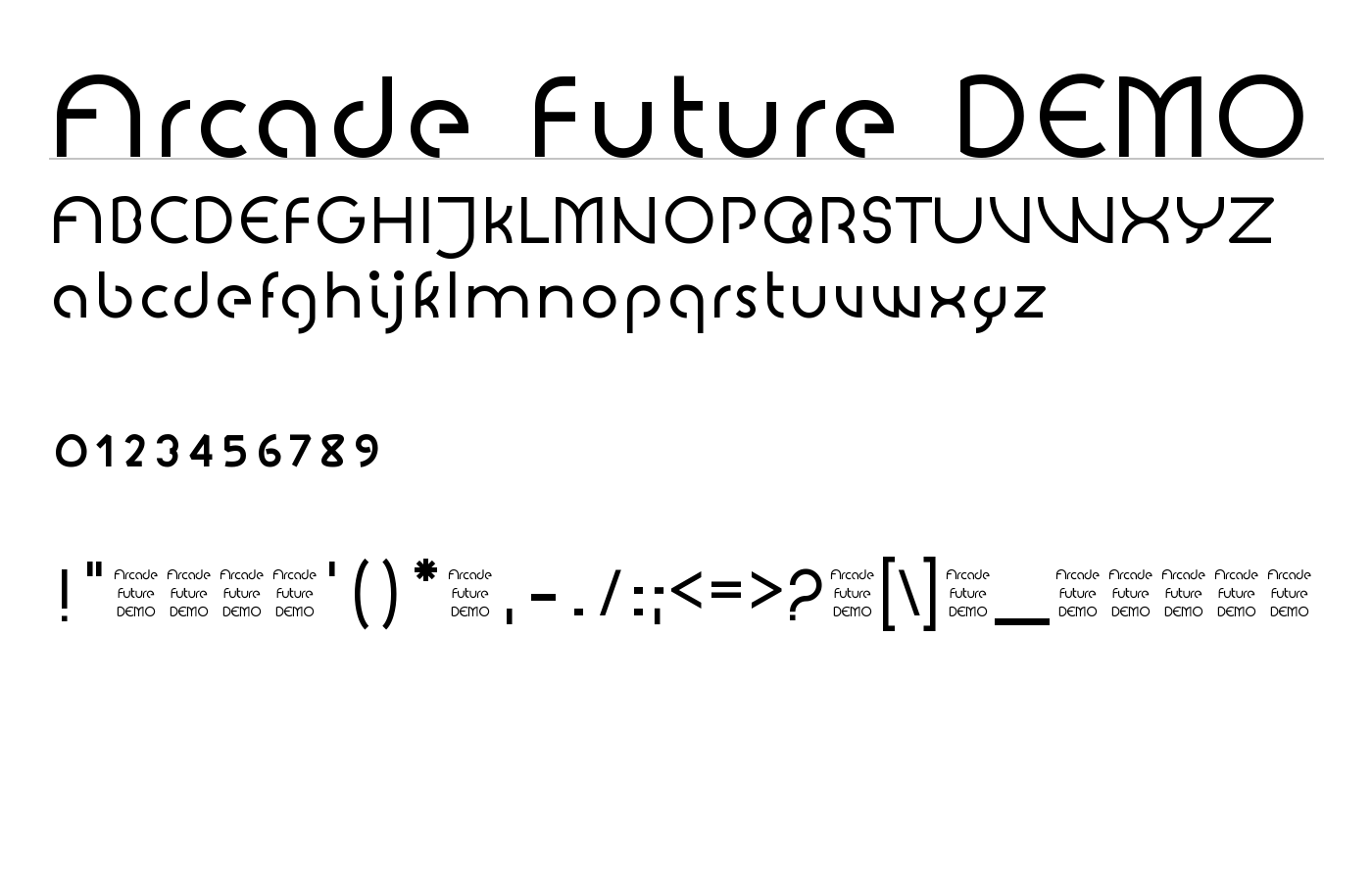
Arcade Future DEMO is a sleek, modern sans serif font with a futuristic, geometric design and clean, uniform stroke weight. Its rounded corners and stylized letterforms give it a playful yet tech-forward vibe, ideal for creative branding, digital interfaces, or headlines that seek a distinct, contemporary look. This font works well where a unique, eye-catching style is needed to convey innovation and modernity.
Arcade Future DEMO Font
About Arcade Future DEMO Font